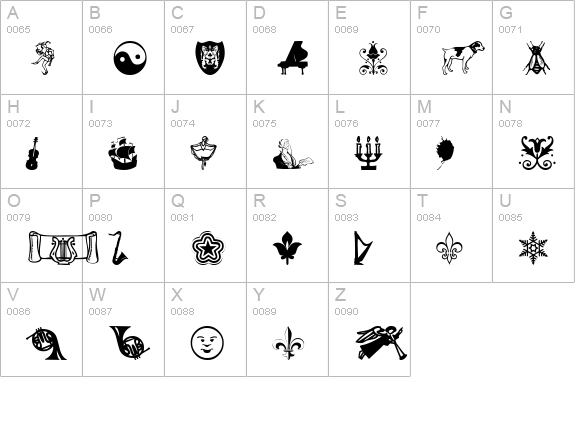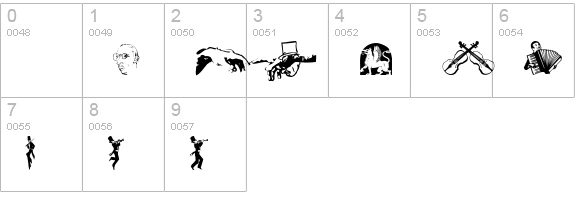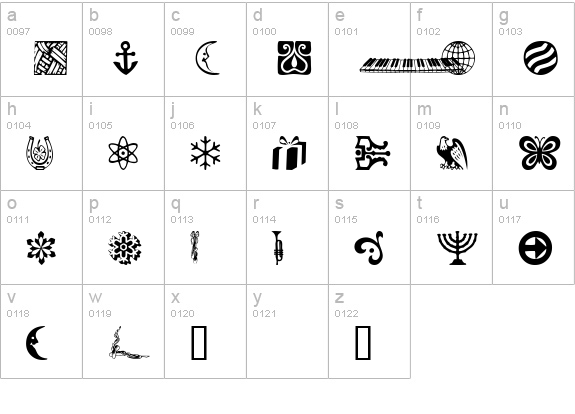
DoodleDingbatsOneSSK Font Details
DoodleDingbatsOneSSK font is a whimsical and playful typeface that is perfect for adding a touch of fun to any project. Featuring a collection of doodle-style dingbats, this font is sure to add character and charm to your designs. Whether you're creating invitations, posters, or greeting cards, DoodleDingbatsOneSSK font will bring a unique and creative element to your work. Best of all, this font is completely free to download at FontsMarket.com. Simply visit the website and add DoodleDingbatsOneSSK to your font collection today. Let your imagination run wild with this delightful and free font!